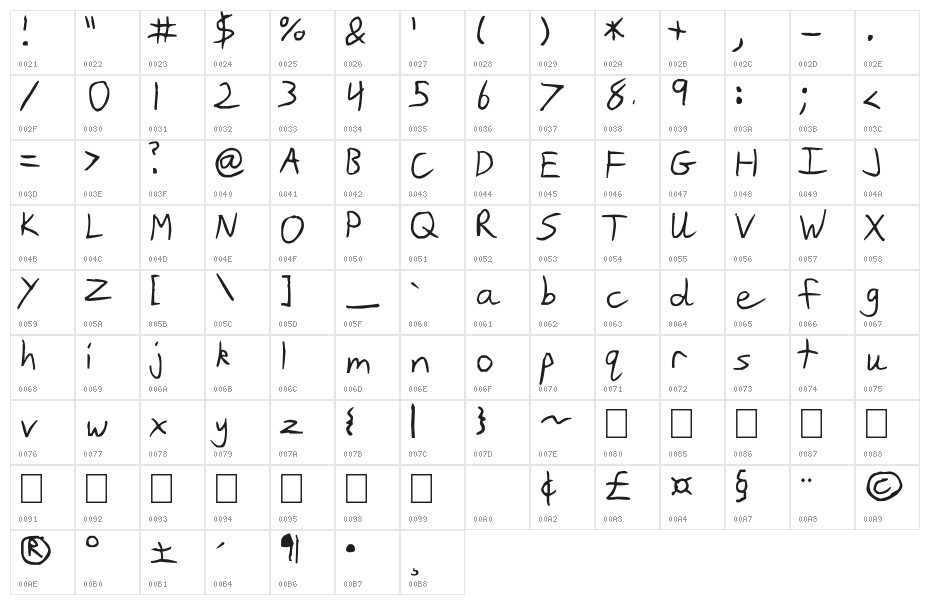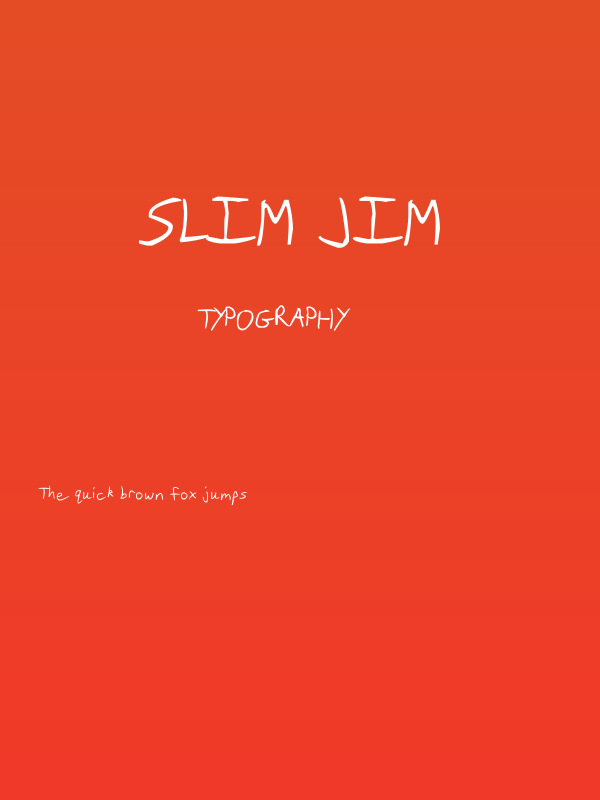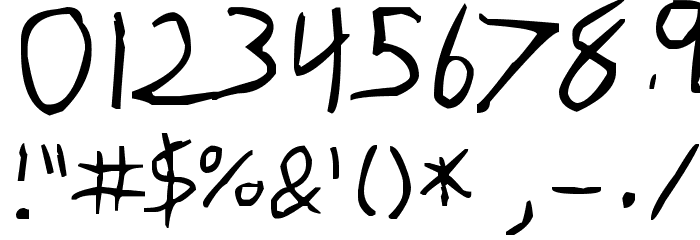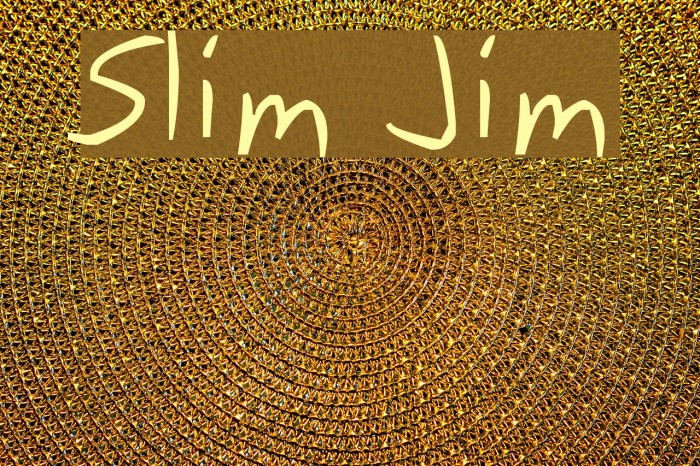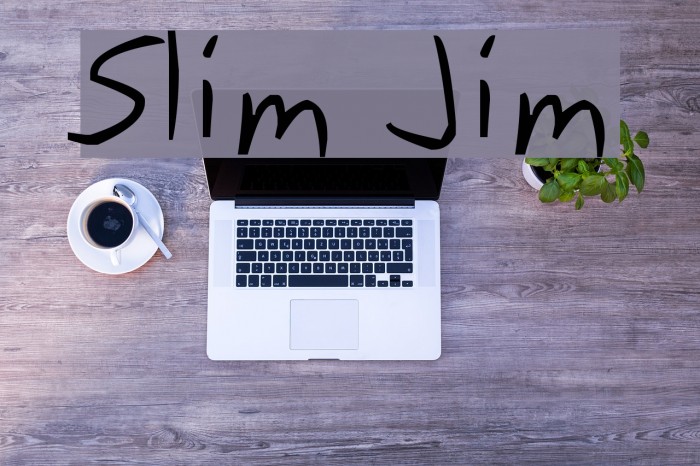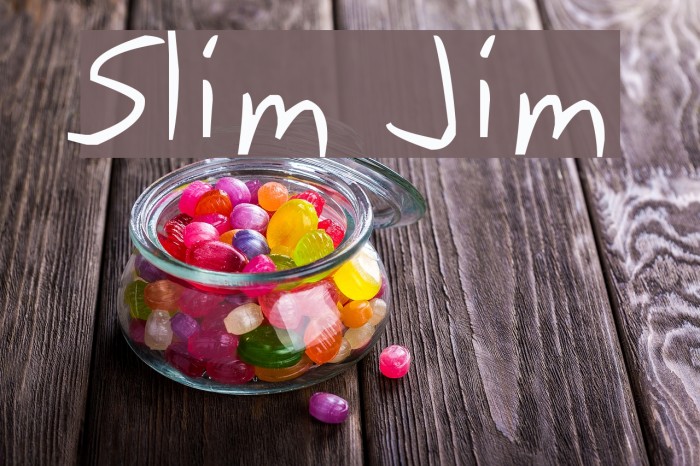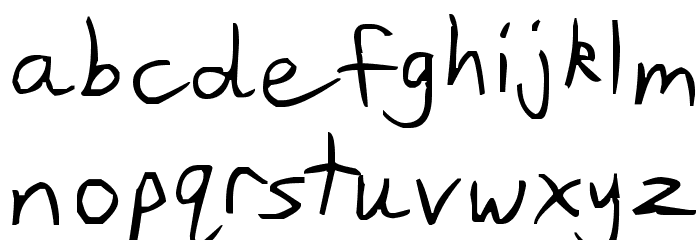
Slim Jim Font
Slim Jim Description
This font features a casual, handwritten style with a playful and informal appearance. The characters are slightly irregular, giving it a personal touch that mimics natural handwriting. The strokes are consistent in width, providing a uniform look across all letters and numbers. The uppercase letters are bold and prominent, while the lowercase letters maintain a more relaxed and flowing form. The numerals are clear and easy to read, matching the overall style of the alphabet. Special characters are included, maintaining the same handwritten aesthetic, making this font versatile for various uses.
| Use Case | Logos, Invitations, Personal notes |
| Proposed Projects | Ideal for personal notes, greeting cards, informal invitations, and creative projects that require a personal touch. |